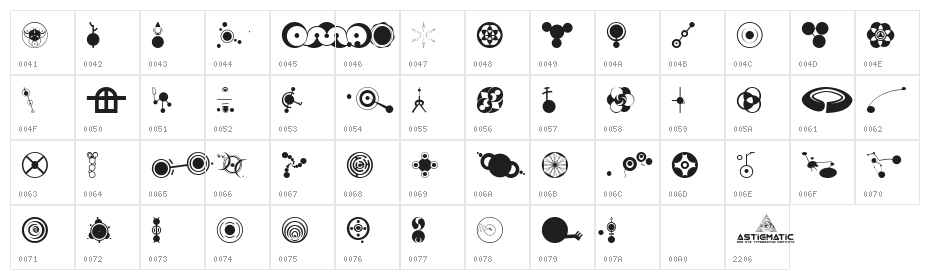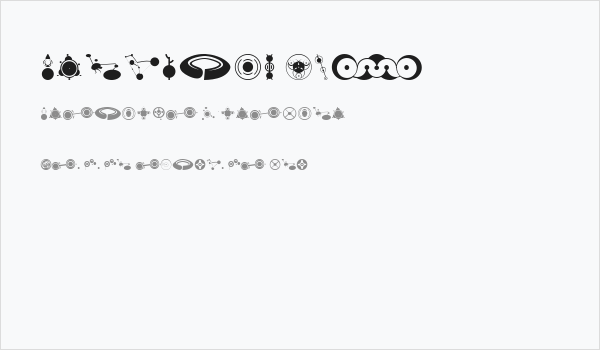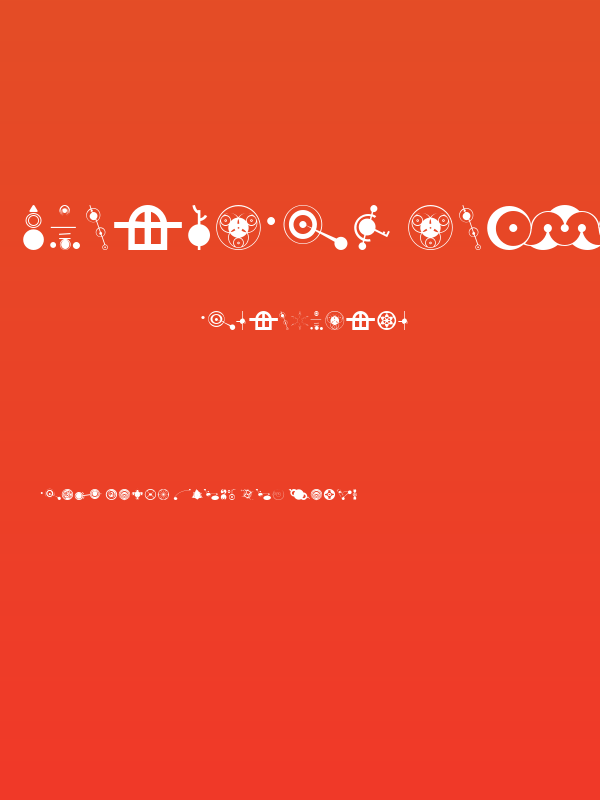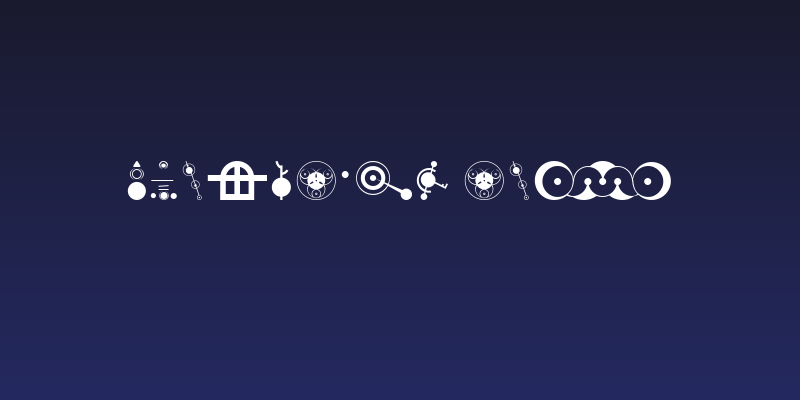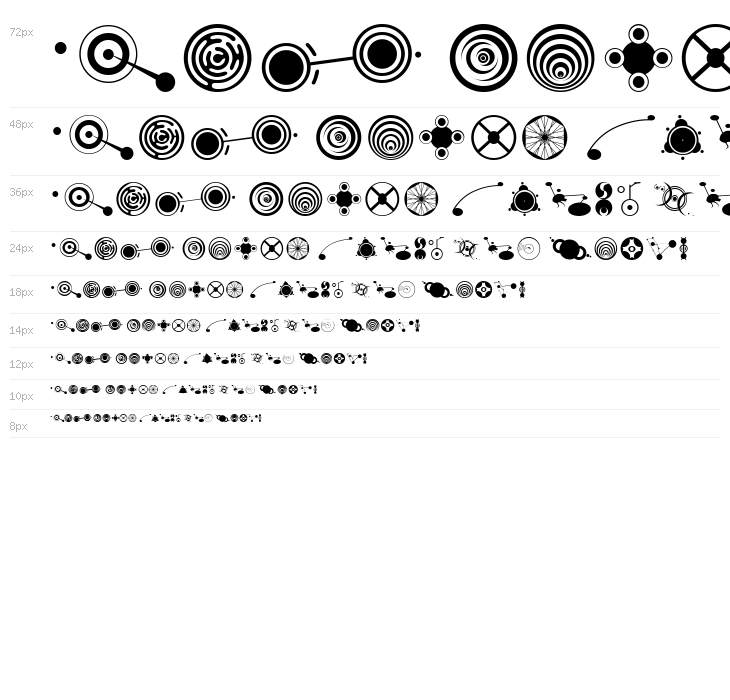
CropBats AOE Font
CropBats AOE Description
A highly decorative dingbat font featuring abstract, circular, and geometric glyphs inspired by crop circle motifs. Each character is a unique symbol composed of dots, rings, lines, and interconnected shapes, with a strong emphasis on symmetry and bold contrasts.
Overall StyleDecorative, Abstract, Futuristic
Use CaseLogos, Decorative elements, Themed headlines, Graphic art
Proposed ProjectsPosters, album covers, sci-fi themed graphics, decorative dividers, branding for alternative or paranormal topics.